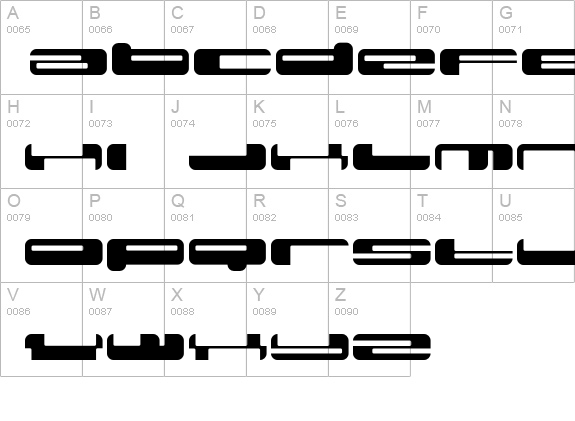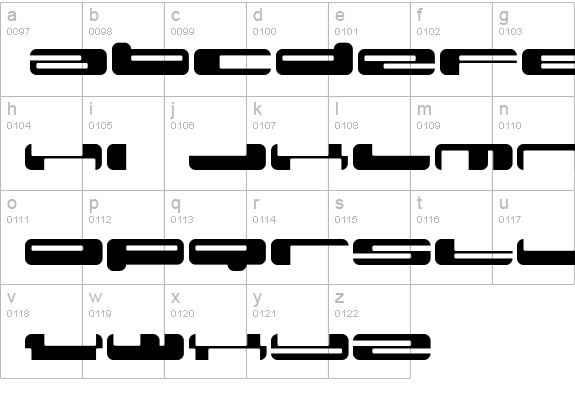
Pancake Font Details
Introducing Pancake Font, a delightful and versatile typeface that will add a touch of sweetness to your designs. With its charming curves and playful letterforms, Pancake Font is perfect for a wide range of creative projects, from branding and packaging to posters and social media graphics. This free font offers a unique blend of modernity and whimsy, making it a standout choice for those seeking a fresh and distinctive look. Its carefully crafted characters are designed to capture attention and evoke a sense of joy and warmth. Whether you're creating a logo for a bakery, designing a menu for a brunch spot, or simply adding a fun element to your personal projects, Pancake Font is sure to impress. And the best part? Pancake Font is freely available to download at FontsMarket.com. That means you can start using this delightful typeface in your designs right away, without any cost or hassle. FontsMarket.com is a trusted source for high-quality fonts, and their easy-to-navigate website makes it a breeze to find and download the perfect typeface for your needs. So don't miss out on the opportunity to add a deliciously charming touch to your designs with Pancake Font. Download this free font today from FontsMarket.com and let your creativity and imagination soar!